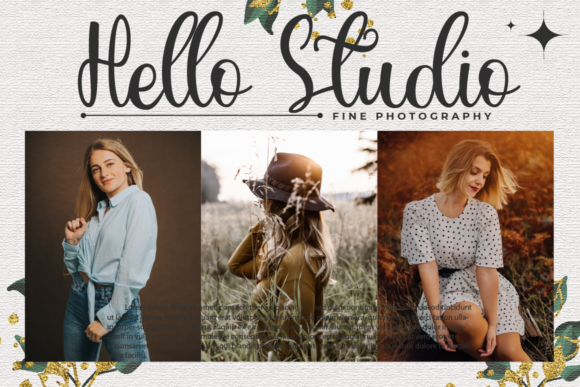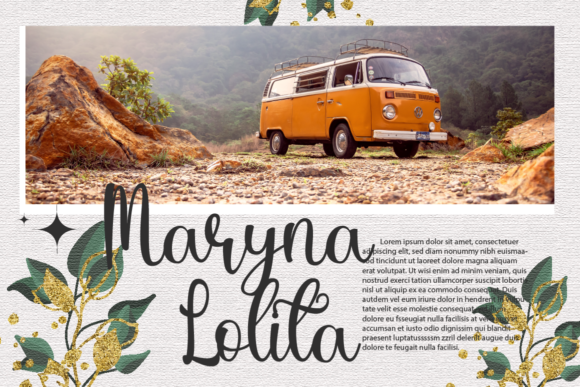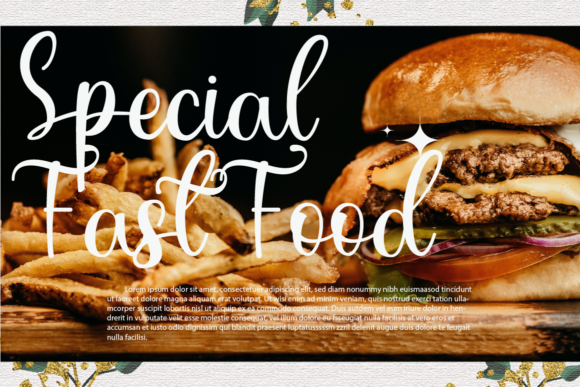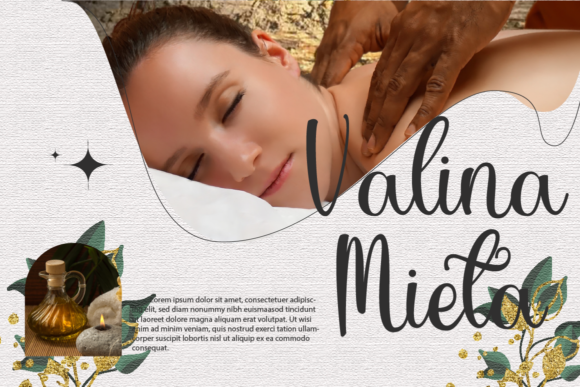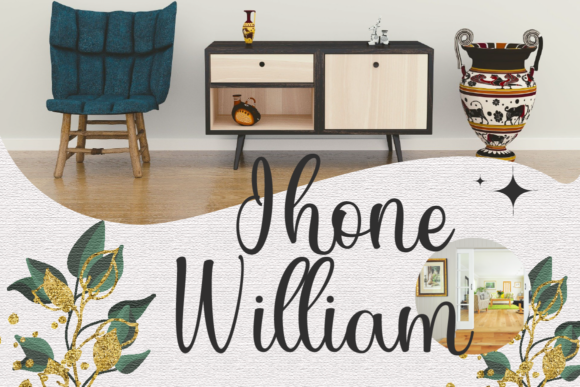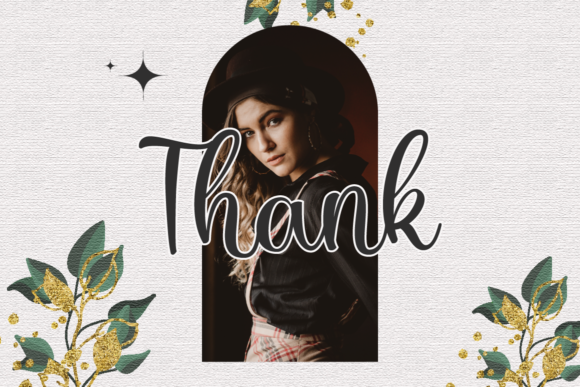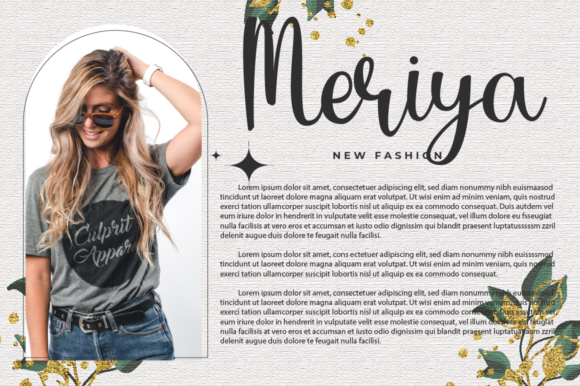
Magnolia Craft Font
About Magnolia Craft Font
Magnolia Craft feels equally delicate and chic. It looks lovely on wedding invitations, thank you cards, quotes, greeting cards, logos, business cards and every other design which needs a customized touch.